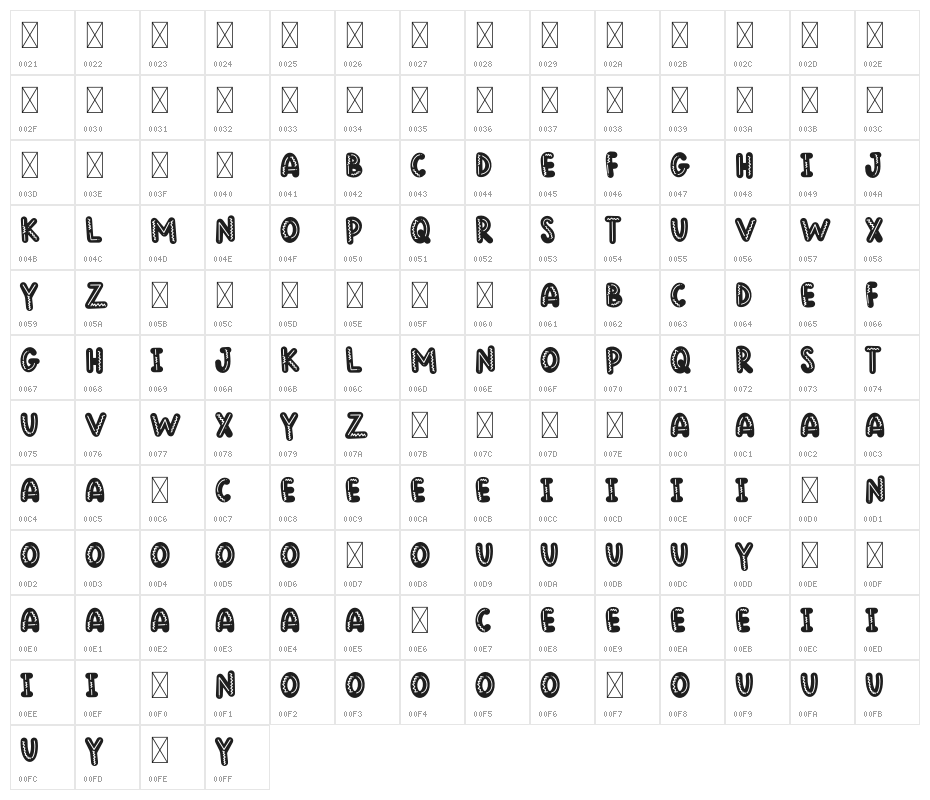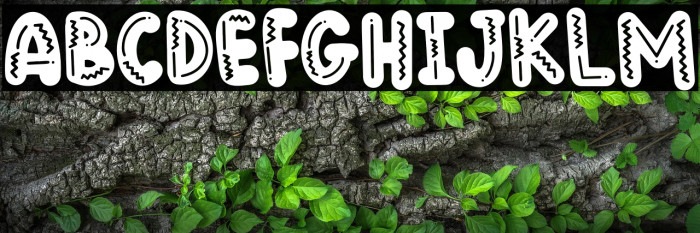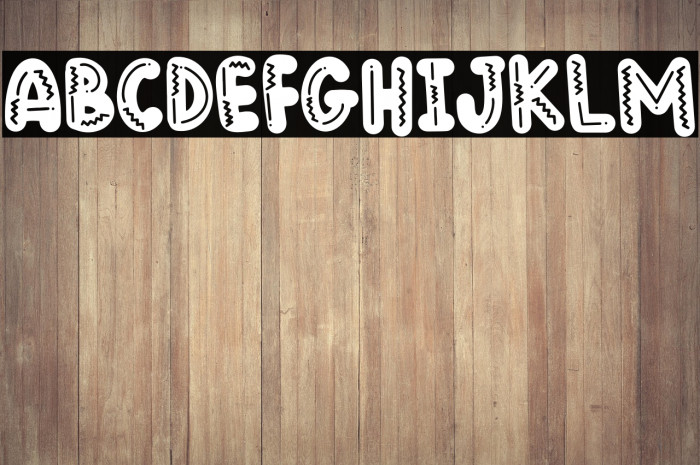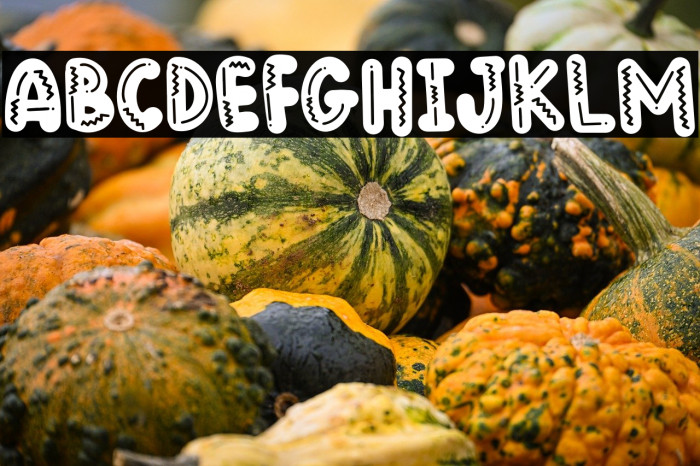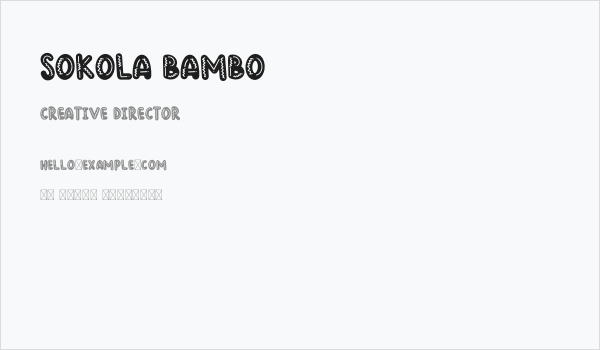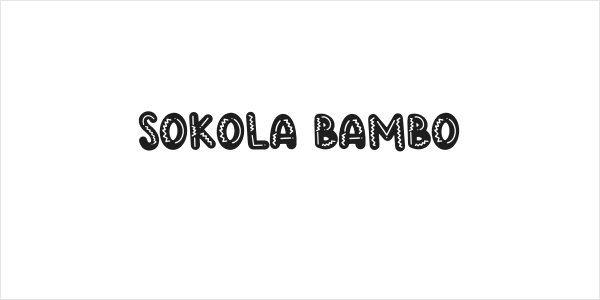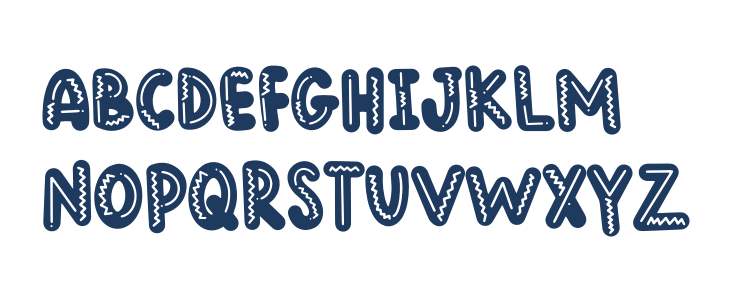
Sokola Bambo Font
Sokola Bambo Description
This font features a playful and bold design with a unique zigzag pattern inside each letter, creating a dynamic and eye-catching appearance. The characters are uppercase only, with a thick, rounded structure that adds to the font's friendly and approachable feel. The zigzag pattern varies slightly between letters, adding a sense of movement and individuality to each character. This decorative style is perfect for projects that require a fun and energetic vibe.
| Overall Style | Playful, Energetic, Fun |
| Proposed Projects | Ideal for children's book covers, playful branding, party invitations, and creative posters. |